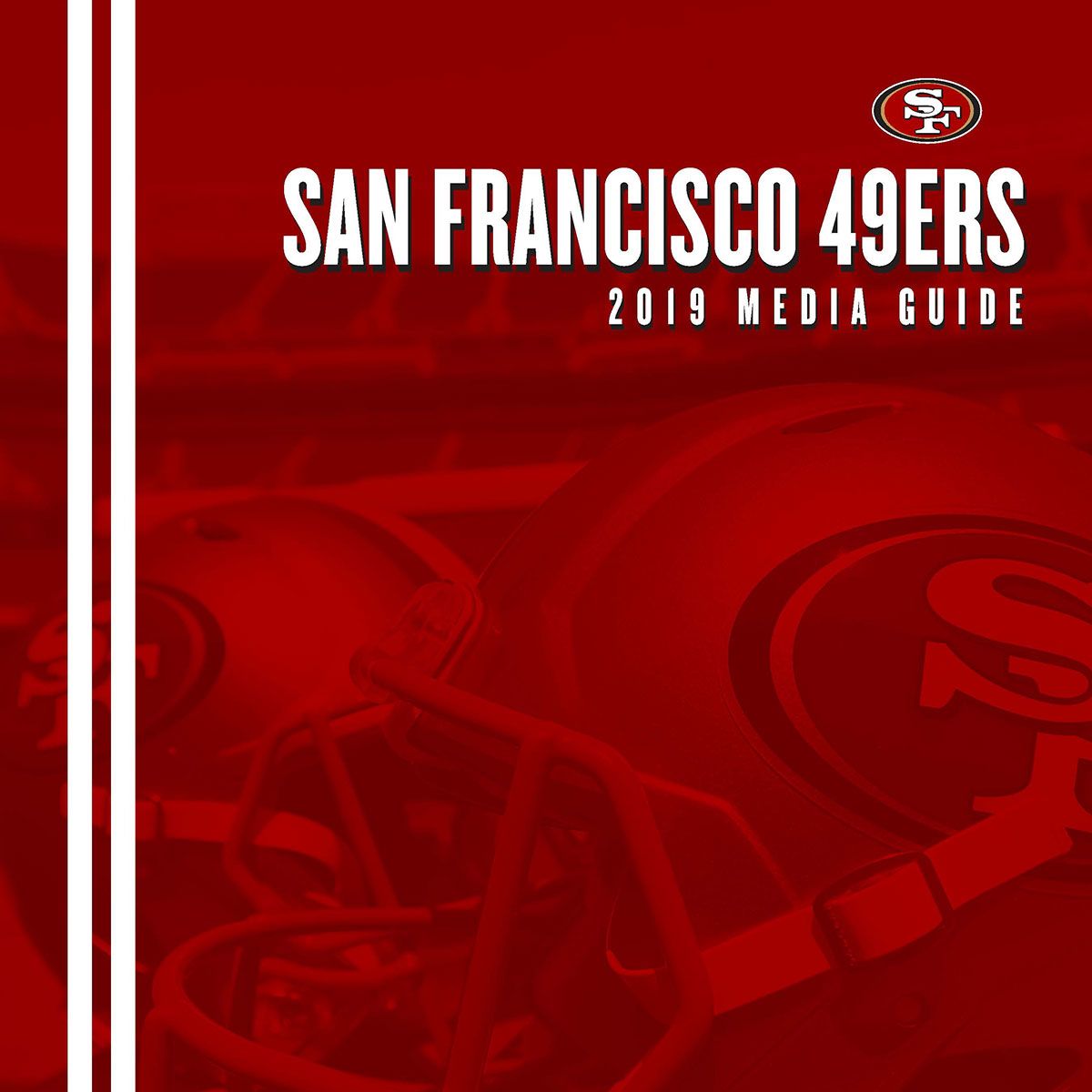
San Francisco 49ers Logo Font
San francisco 49ers logo font. Because a vast majority of the designers whiling to work along with this team logo as we as its font family. The 49ers official mascot is sourdough sam. The closest font you can get for the san francisco 49ers logo is clarendon std bold font.
Faithful font created the faithful font to match the existing san francisco 49ers logos. Faithful is the official brand font of the san francisco 49ers based on the iconic sf monogram introduced in the early 1960s and a continuation of the 49ers logo type introduced in mid to late 1980s. Click here to buy clarendon std bold font.
Adsbygoogle windowadsbygoogle push. Faithful font created a typeface of the alphabet and numerals by using the iconic sf oval logo. Inside the geometric figure is the monogram sf an abbreviation for san francisco s overlaps the f in the upper left corner and divides into three parts.
The shape and typography stayed the same. The 49ers have a long history of wordmark logos making one style change in 2004. The new logo represents 49ers as a club from san francisco.
The faithful font will be used by the marketing team for print collateral and social media. It has the shape of an oval ellipse which is associated with the ball for playing football. San francisco 49ers logo black and white.
This font will be used for the marketing team for numerous print collateral brand identity and campaign. San francisco 49ers 2009 present wordmark 49ers in white with gold outline and a underline on a red background. I referenced the clarendon bold font which was very similar to the logo and made the necessary refinements to the letter forms.
The san francisco logo in 2009 went through some small changes regarding the color scheme. What font does san francisco 49ers use. So today we wanna bestowing you to a font family that used for its logo.